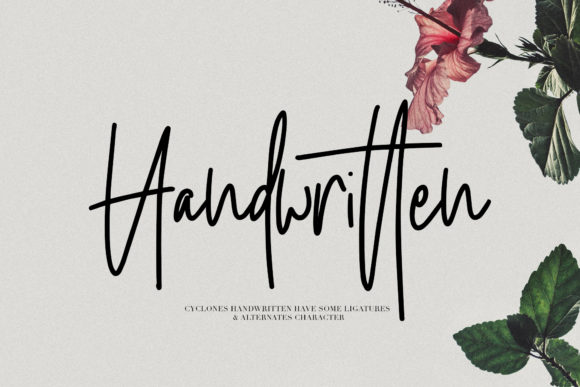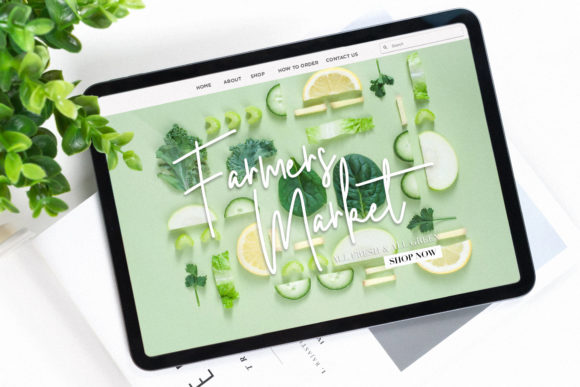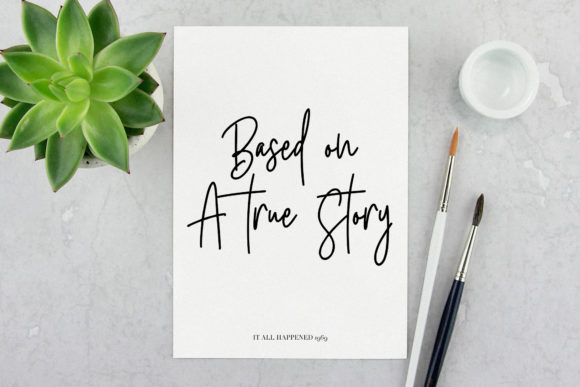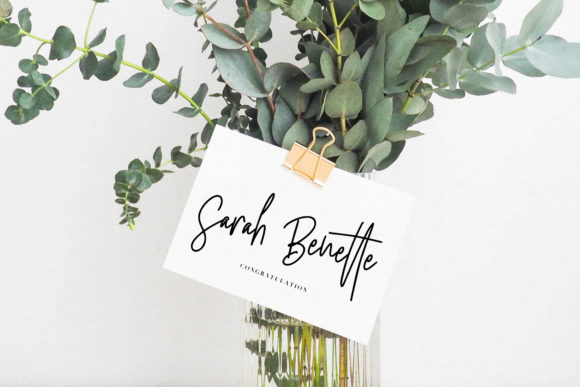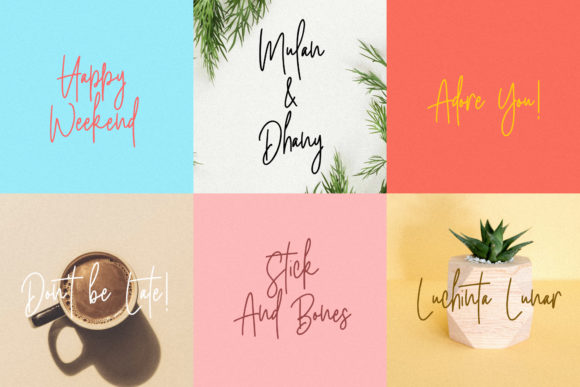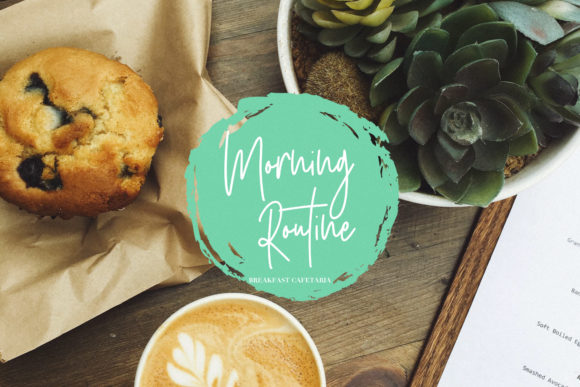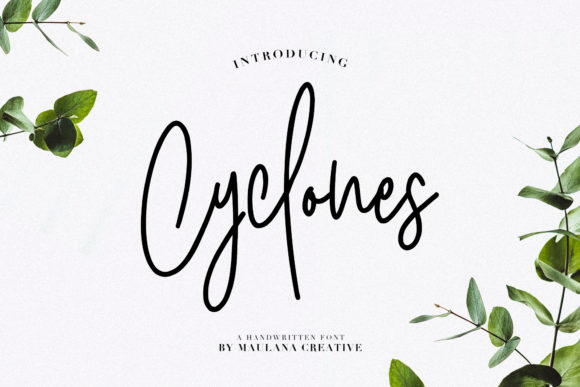
Cyclones Font: A Friendly and Modern Script Font with a Unique Style
Are you tired of using the same old fonts in your designs? Look no further than Cyclones Font, a friendly and modern script font that’s sure to inspire your creativity. With its unique style and contemporary appeal, Cyclones Font is the perfect addition to any design project.
What is Cyclones Font?
Cyclones Font is a script font that’s designed to be both elegant and approachable. Its unique style is characterized by flowing lines and a carefree spirit, making it perfect for designs that require a touch of personality. Whether you’re working on a branding project, a wedding invitation, or a social media graphic, Cyclones Font is sure to make your design stand out.
Key Features of Cyclones Font
- Unique Style: Cyclones Font has a distinctive style that’s both modern and elegant. Its flowing lines and carefree spirit make it perfect for designs that require a touch of personality.
- Friendliness: Cyclones Font is designed to be friendly and approachable. Its warm and inviting tone makes it perfect for designs that require a personal touch.
- Contemporary Appeal: Cyclones Font has a contemporary appeal that’s sure to inspire your creativity. Its modern style makes it perfect for designs that require a fresh and up-to-date look.
- Versatility: Cyclones Font is versatile and can be used for a wide range of design projects, from branding and advertising to wedding invitations and social media graphics.
Why Use Cyclones Font?
There are many reasons why you should consider using Cyclones Font in your designs. Here are just a few:
- Add Personality to Your Designs: Cyclones Font is the perfect way to add personality to your designs. Its unique style and friendly tone make it perfect for designs that require a touch of personality.
- Stand Out from the Crowd: Cyclones Font is a unique font that’s sure to make your design stand out from the crowd. Its contemporary appeal and modern style make it perfect for designs that require a fresh and up-to-date look.
- Easy to Read: Cyclones Font is easy to read, even at small sizes. This makes it perfect for designs that require a lot of text, such as blog posts and articles.
How to Use Cyclones Font?
Using Cyclones Font is easy. Here are just a few tips to get you started:
- Pair it with Other Fonts: Cyclones Font pairs well with other fonts, including serif and sans-serif fonts. Experiment with different font combinations to find the perfect look for your design.
- Use it for Headings and Titles: Cyclones Font is perfect for headings and titles. Its unique style and friendly tone make it perfect for grabbing the attention of your audience.
- Experiment with Different Sizes: Cyclones Font is easy to read, even at small sizes. Experiment with different sizes to find the perfect look for your design.
Cyclones Font is a friendly and modern script font with a unique style that’s sure to inspire your creativity. Its contemporary appeal and versatility make it perfect for a wide range of design projects, from branding and advertising to wedding invitations and social media graphics. With its ease of use and compatibility with a wide range of devices, Cyclones Font is the perfect addition to any design project.
Get Inspired by Cyclones Font